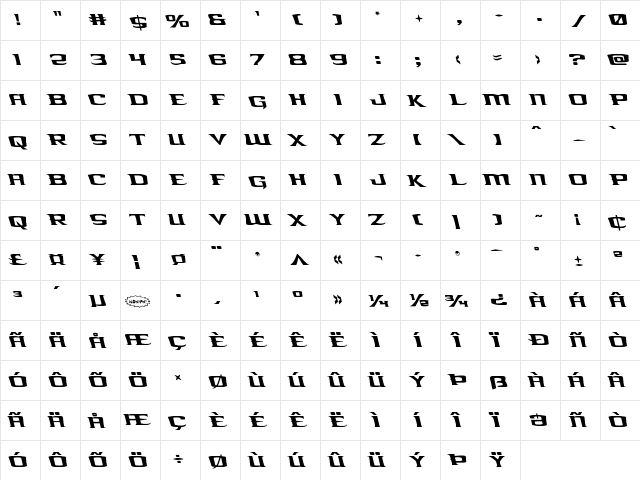
Kreature Kombat Leftalic Italic Font Preview
Kreature Kombat Leftalic Italic
Design Context for Kreature Kombat Leftalic Typeface
Kreature Kombat Leftalic is a composed and adaptable typeface that performs quietly and consistently across a wide range of design contexts. The slanted form adds forward momentum and visual energy.
Pro Tip: Use Kreature Kombat Leftalic for emphasis, pull quotes, and subheadings where its slanted energy can add rhythm to the layout.